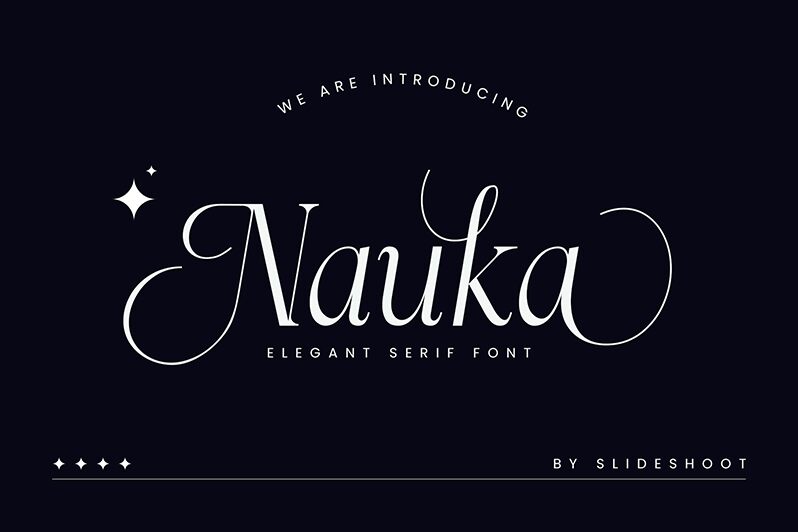
Nauka italic
Nauka Italic font from the Nauka font family by Slide Shoot Type is an elegant and sophisticated free serif font. It is modern, refined, with high-contrast characters in a condensed style. Eye-catching and dynamic, this type of typography presents a powerful tool for users who wish to produce the most stylish of designs.